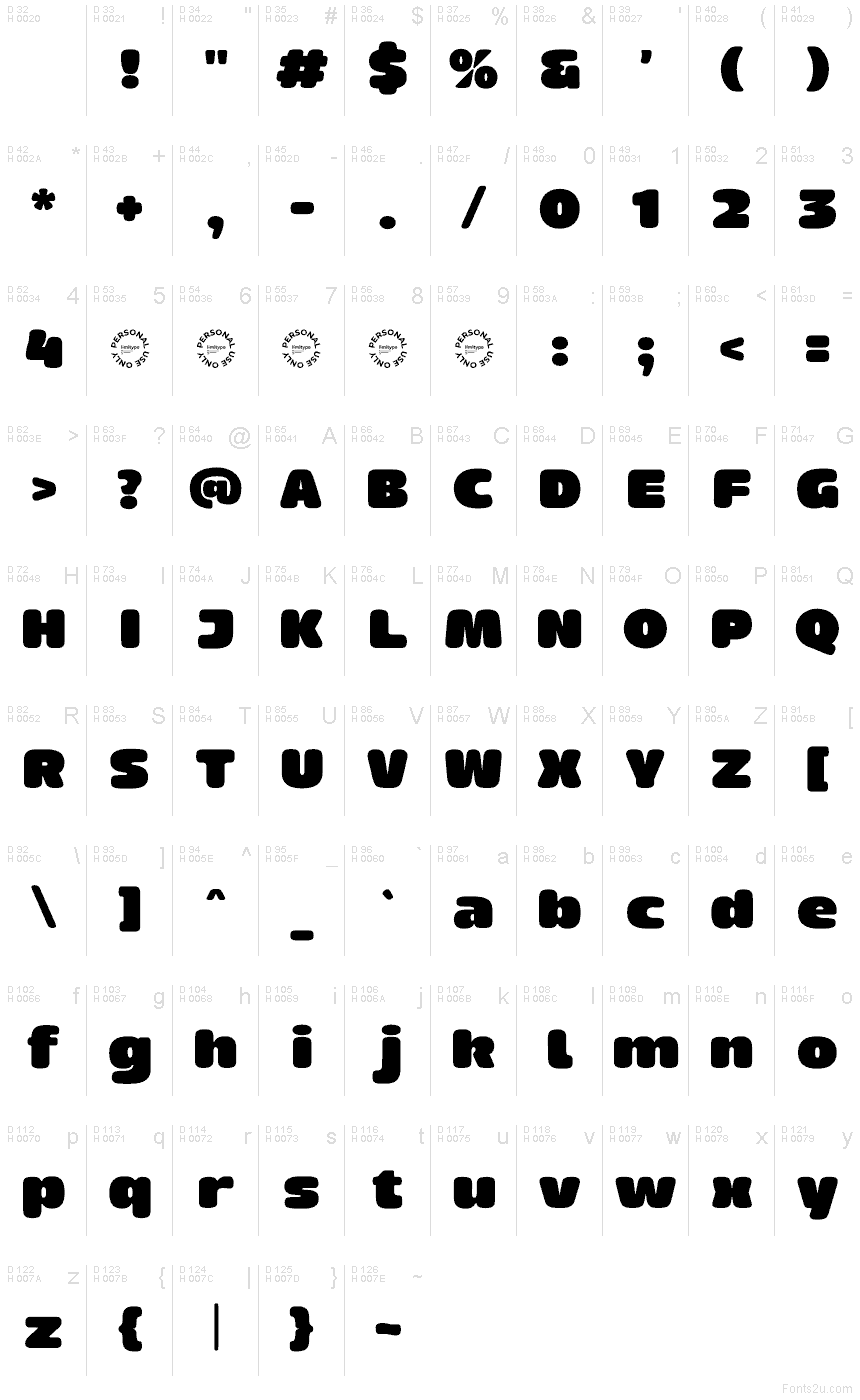
Eatvetica Rounded Demo
Eatvetica Rounded font by Limitype is a free rounded display font from the Eatvetica family. Its pillowy curves, chunky strokes, and soft, glossy-looking terminals give it a friendly, biteable presence that reads fast and feels generous. With a high x-height and tight, steady rhythm, it holds together in big headlines without falling apart at smaller subheads.
Using Eatvetica Rounded, menus, snack packaging, café logos, food-truck wraps, kid-centric posters, app badges, and storefront signage instantly pick up a warm, approachable vibe. The ample bowls and smooth joins create a confident silhouette that pops on bright color or over photos. Pair headlines in this free font with the regular Eatvetica family or a neutral grotesk set 70–80% smaller to keep body copy crisp.